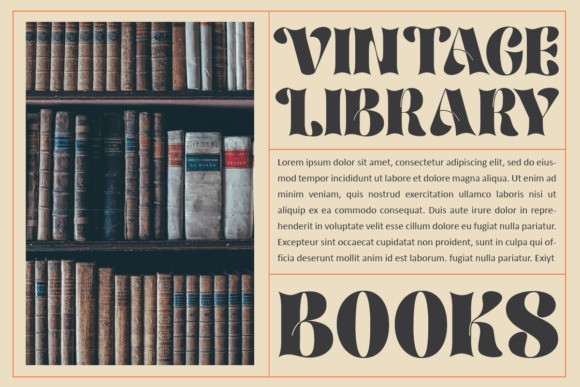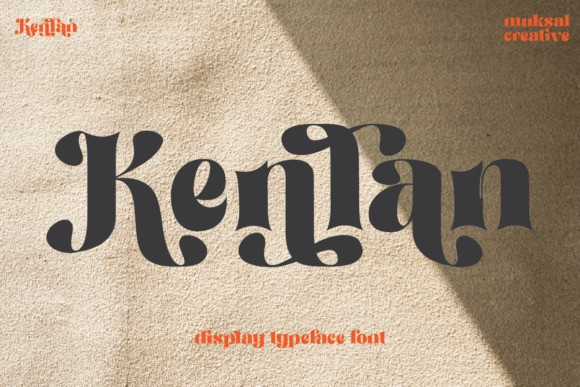
Kenlan Font
Kenlan Display Font is a bold, modern, and extremely stylish serif display font. Its unique style and fashionable appearance, will be a great help when you want to create fashionable, chic designs.